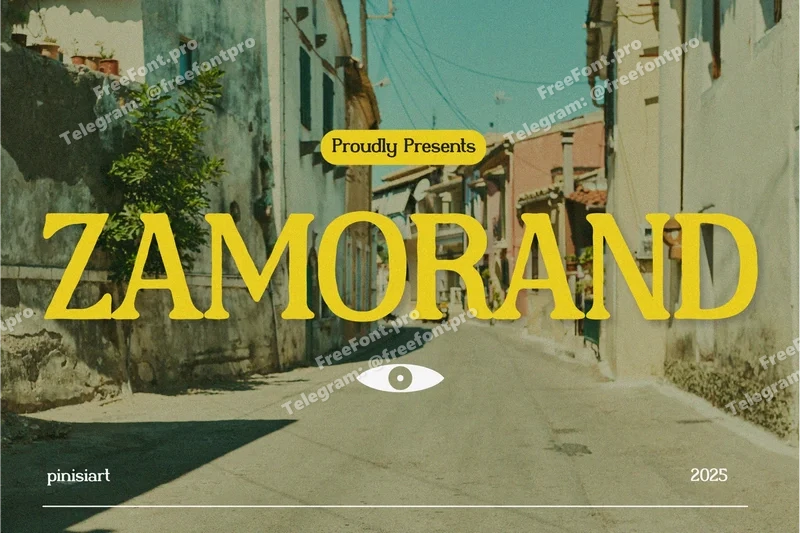
Zamorand – Retro Font
ZAMORAND – Retro Elegance Serif
Retro Font ZAMORAND brings a nostalgic yet modern charm through its expressive serif structure and graceful contrast. Each letterform carries subtle curves, soft edges, and generous spacing, creating a high-end rhythm ideal for storytelling visuals. Its timeless presence feels warm and grounded, perfectly suited for lifestyle branding, travel posters, or editorial design that seeks emotional depth and visual authenticity.
ZAMORAND blends vintage aesthetics with contemporary readability — a perfect match for designers who love old-town moods, coffeehouse atmospheres, and cinematic memories captured in type.
Whether you’re designing for branding, editorials, book covers, or social media campaigns, ZAMORAND captures the nostalgic charm of handwritten travel diaries and retro signage. Its expressive letterforms create an inviting atmosphere, making headlines feel heartfelt and personal. Designers will love using ZAMORAND for emotional storytelling projects, vintage cafés, lifestyle blogs, or boutique product packaging that calls for warmth and sincerity.
High-end retro serif with soft contrast and smooth curvature
Evokes nostalgic, cinematic, and timeless visual moods
Works beautifully for editorial headlines and storytelling graphics
Combines traditional charm with modern alignment and balance
Pairs effortlessly with minimalist sans-serif fonts